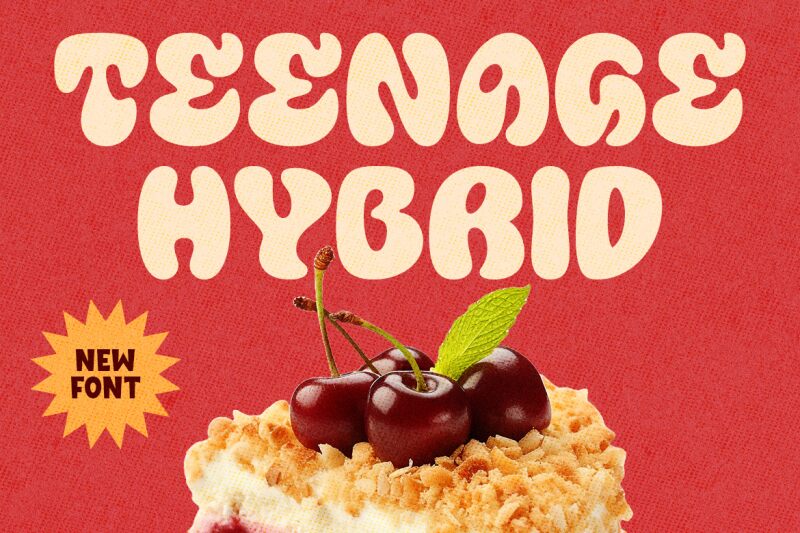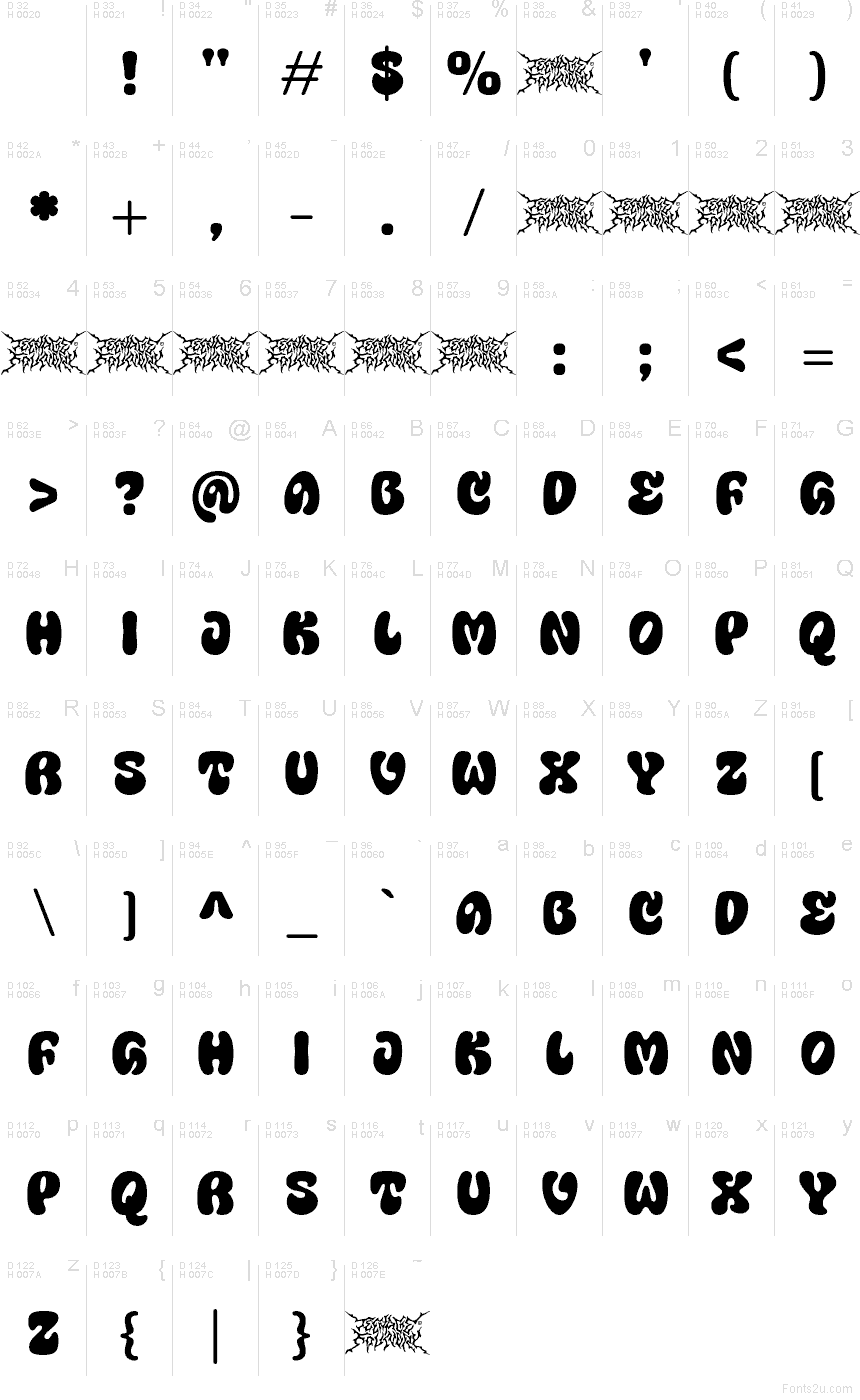
Teenage Hybrid
Teenage Hybrid font by Prio Nurokhim Aji of Teenage Foundry is a free groovy font, and its charm comes from those chunky, ink-blobby shapes with cheeky inner curls that feel like lava-lamp foam. The rhythm is bouncy and wide, with soft corners that keep things playful even at big sizes—think sticker lettering you can almost press with your thumb.
Using Teenage Hybrid works beautifully for poster titles, album covers, streetwear graphics, festival flyers, café menus, YouTube thumbnails, and bold social ads. This free font shines on short phrases where the bubbly spacing can breathe; pair it with a clean geometric sans for the small copy and let the headline do the talking.